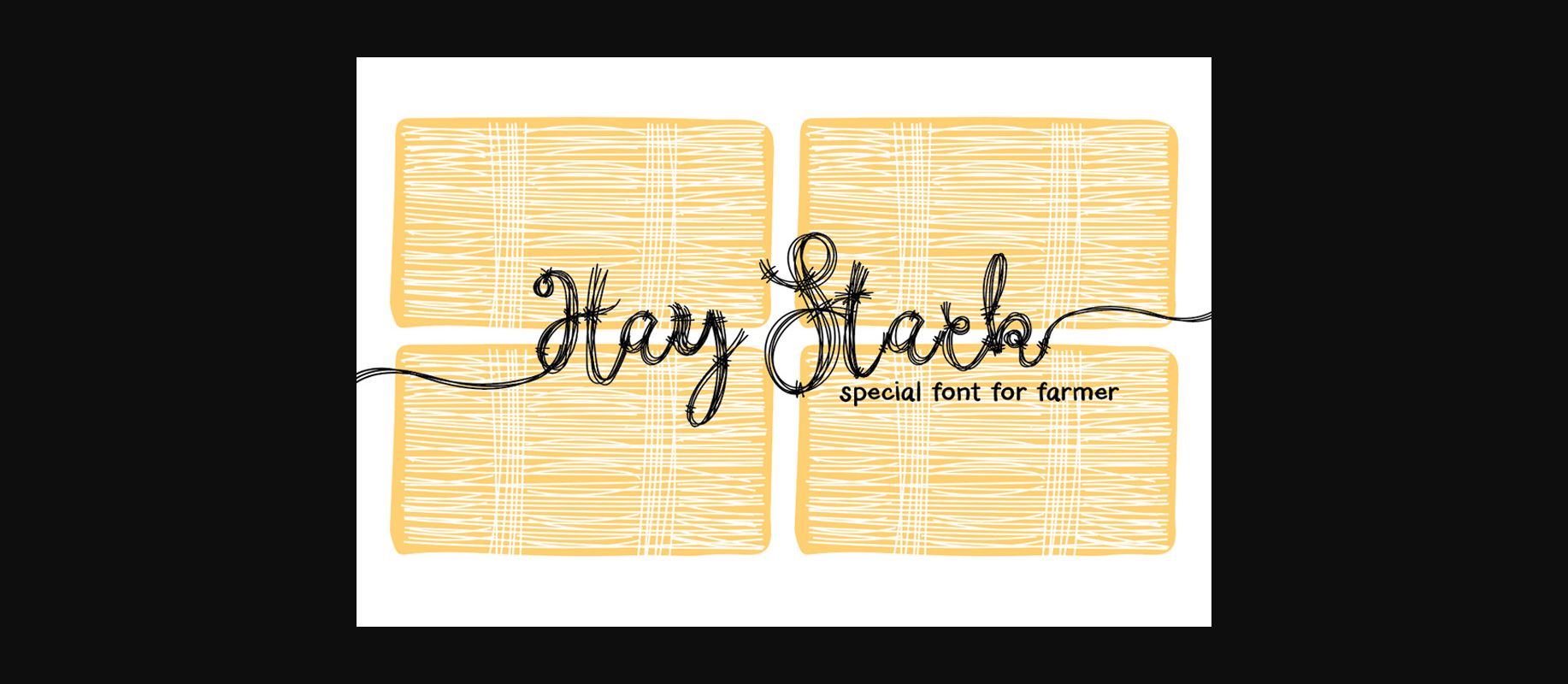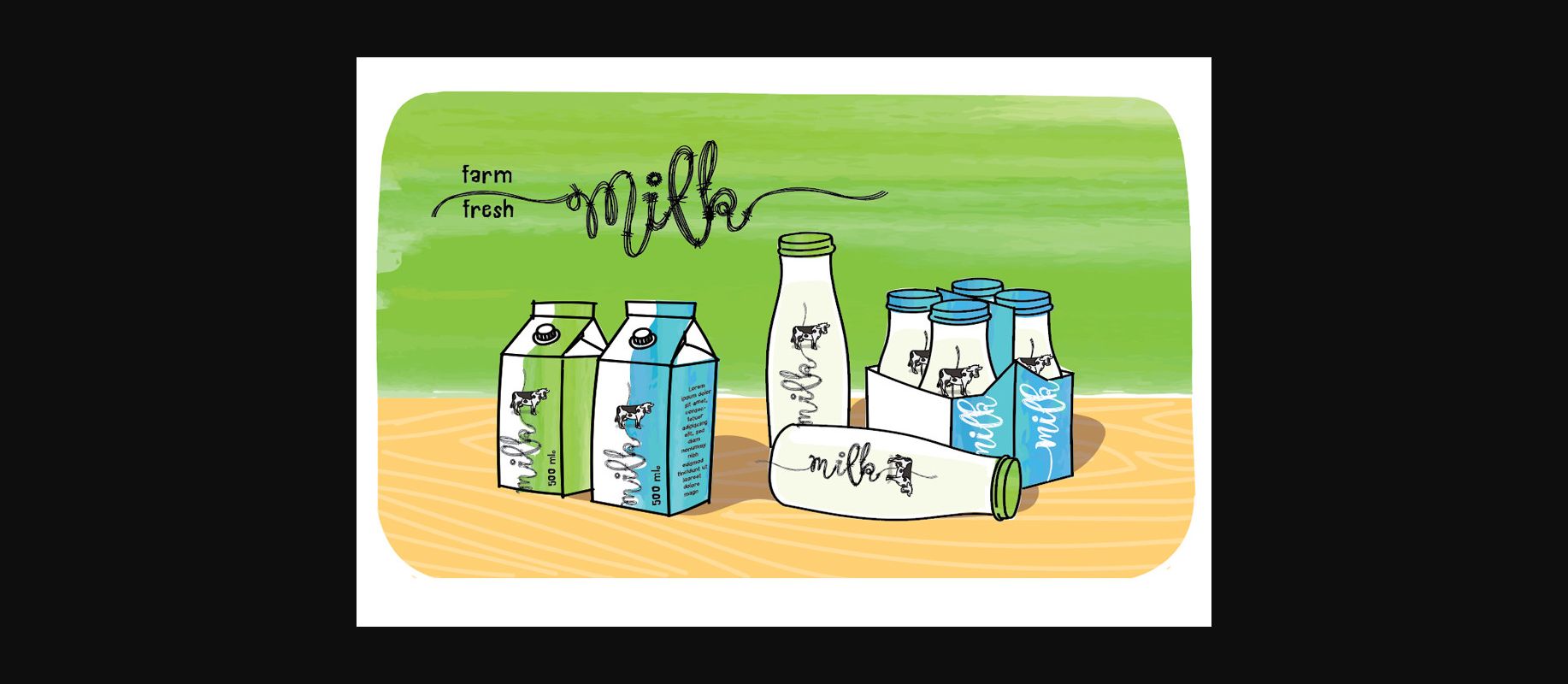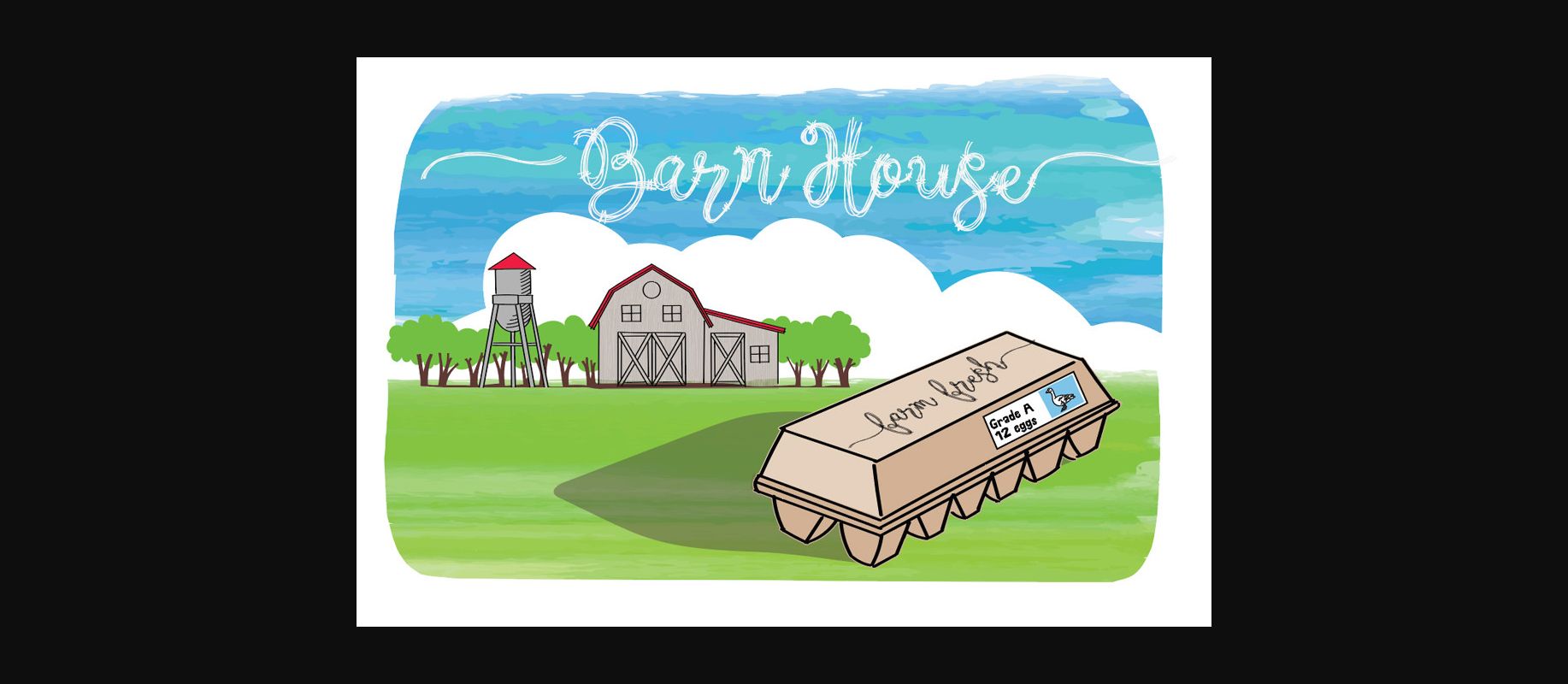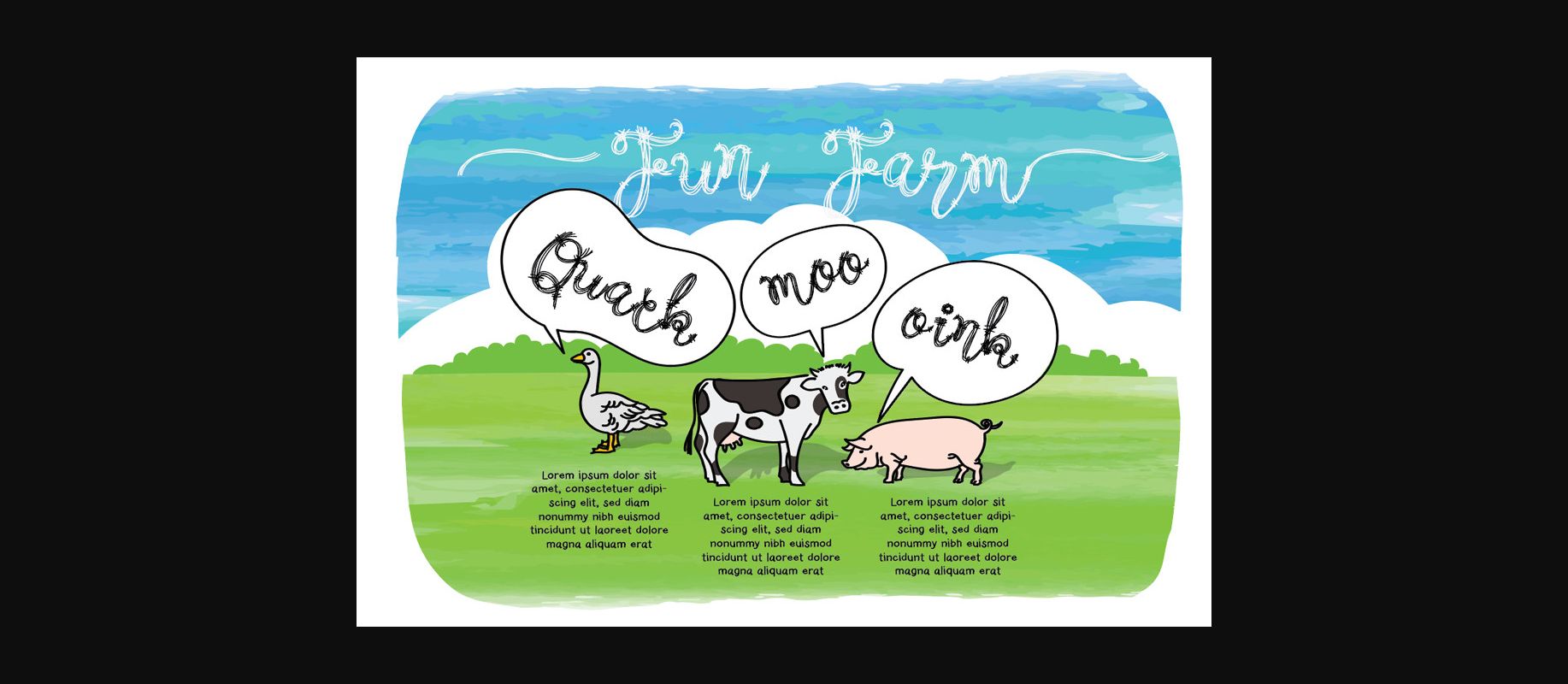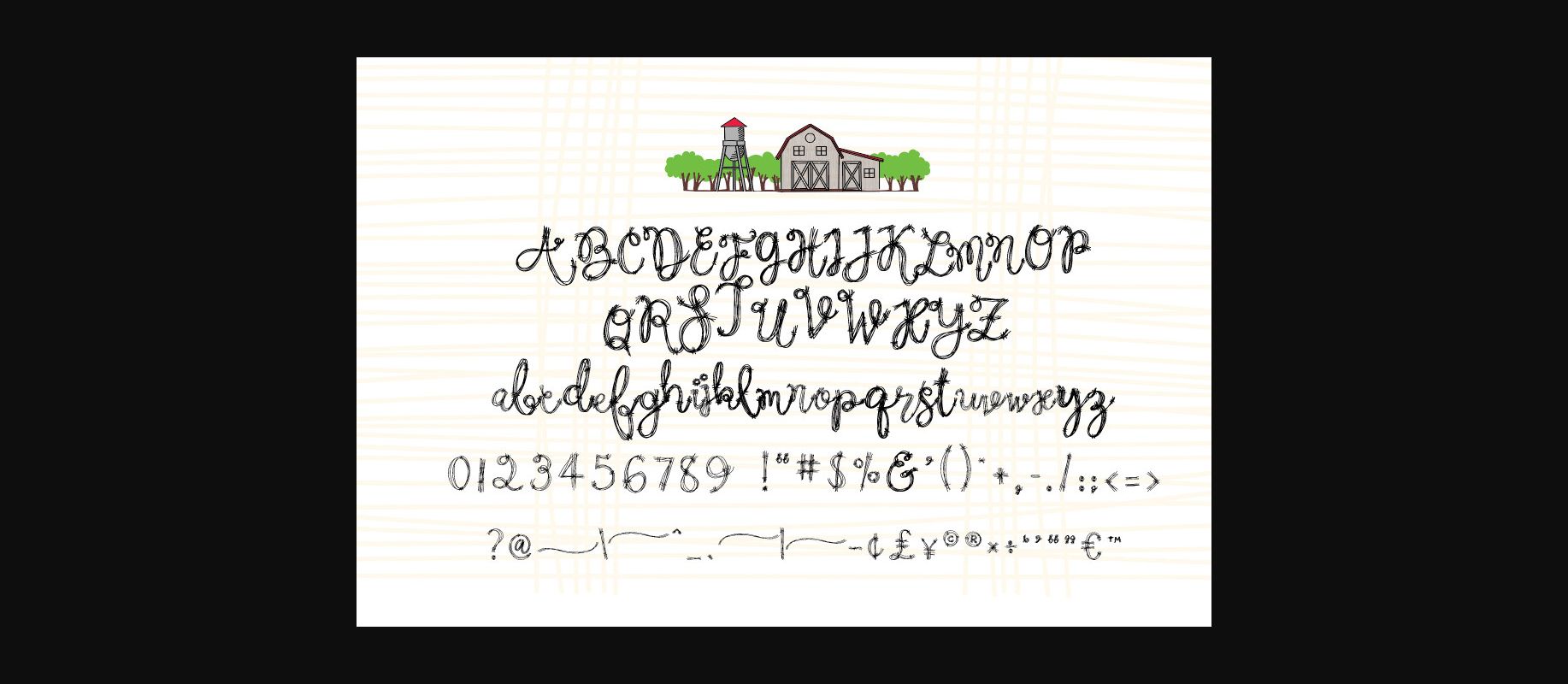
About Haystack Font
Haystack is a cool looking, unique, decorative font. Whether you’re using it for crafting, digital designing, presentations or greeting cards making, it’s perfect!